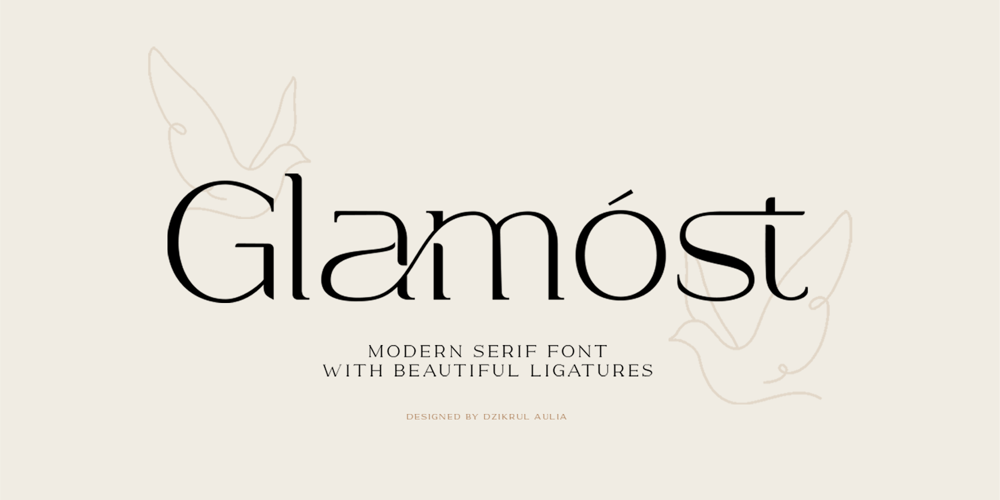
Glamost Font Family was designed by Dzikrul Aulia and published by Bale Type. Glamost contains 1 styles and family package options. Glamost is a minimalist and elegant serif with many ligatures that will make your project more stand out. You can use this font for any purpose, such as branding identity, logo, magazine, quotes, etc. With simple steps, you can get an aesthetic touch in your design. This font also support multi language.